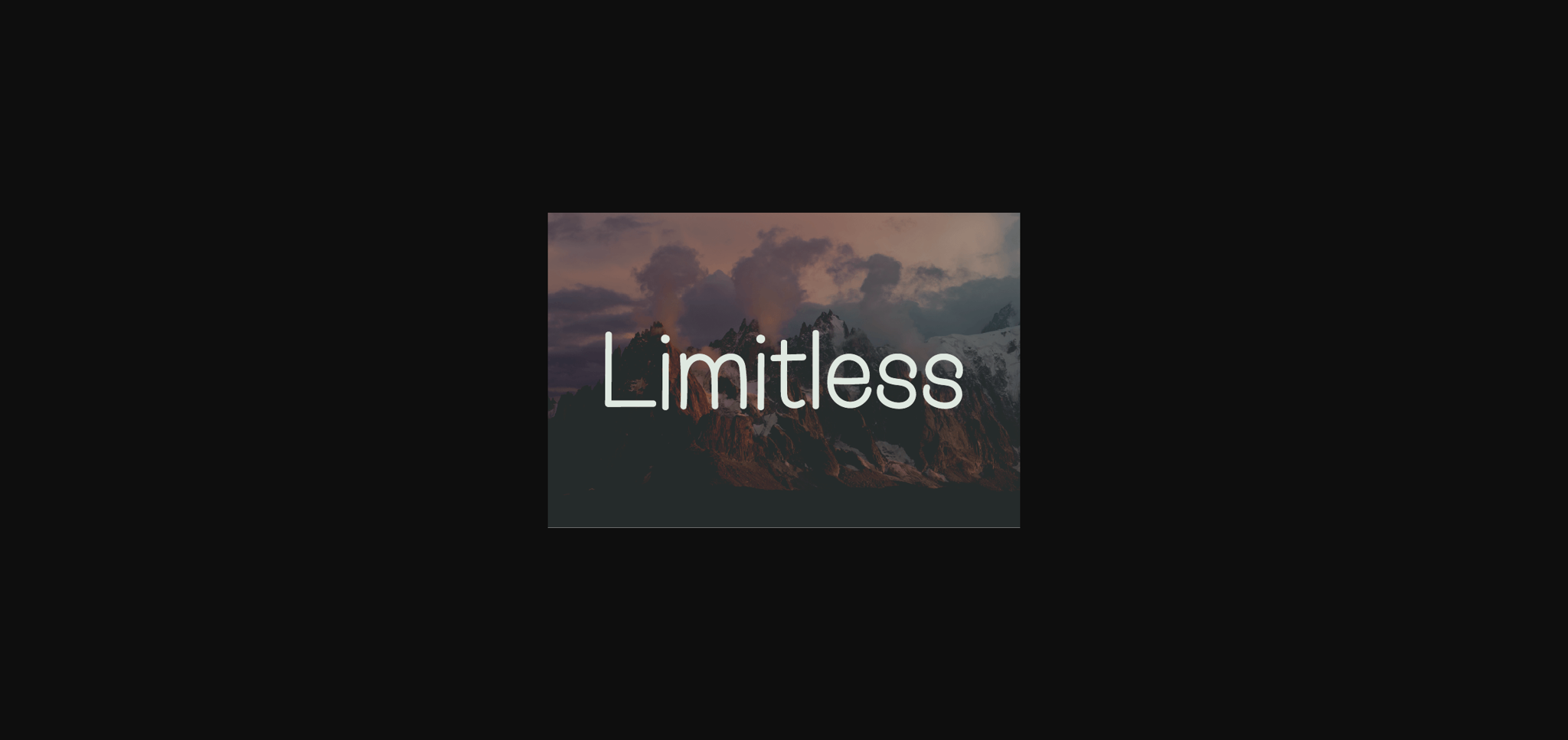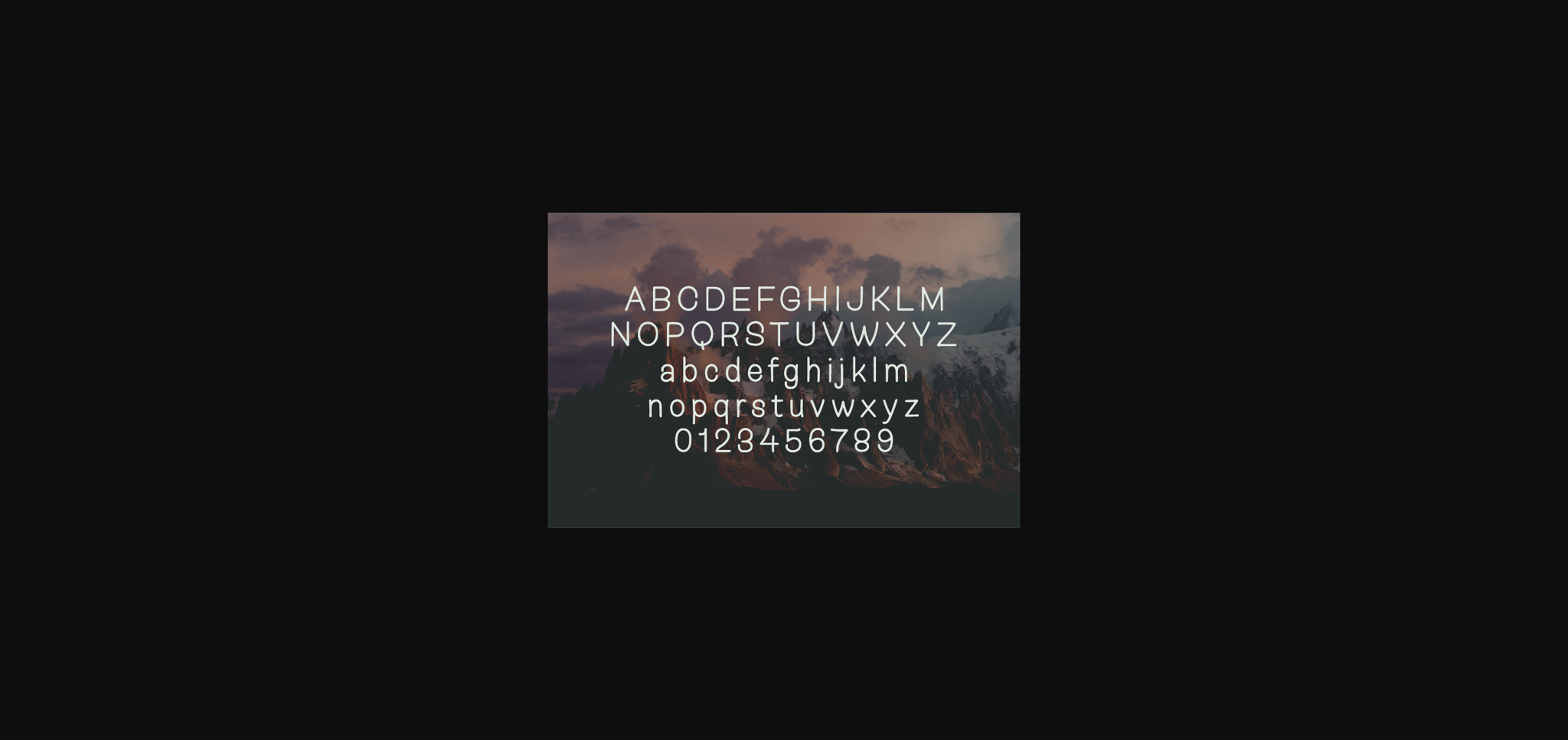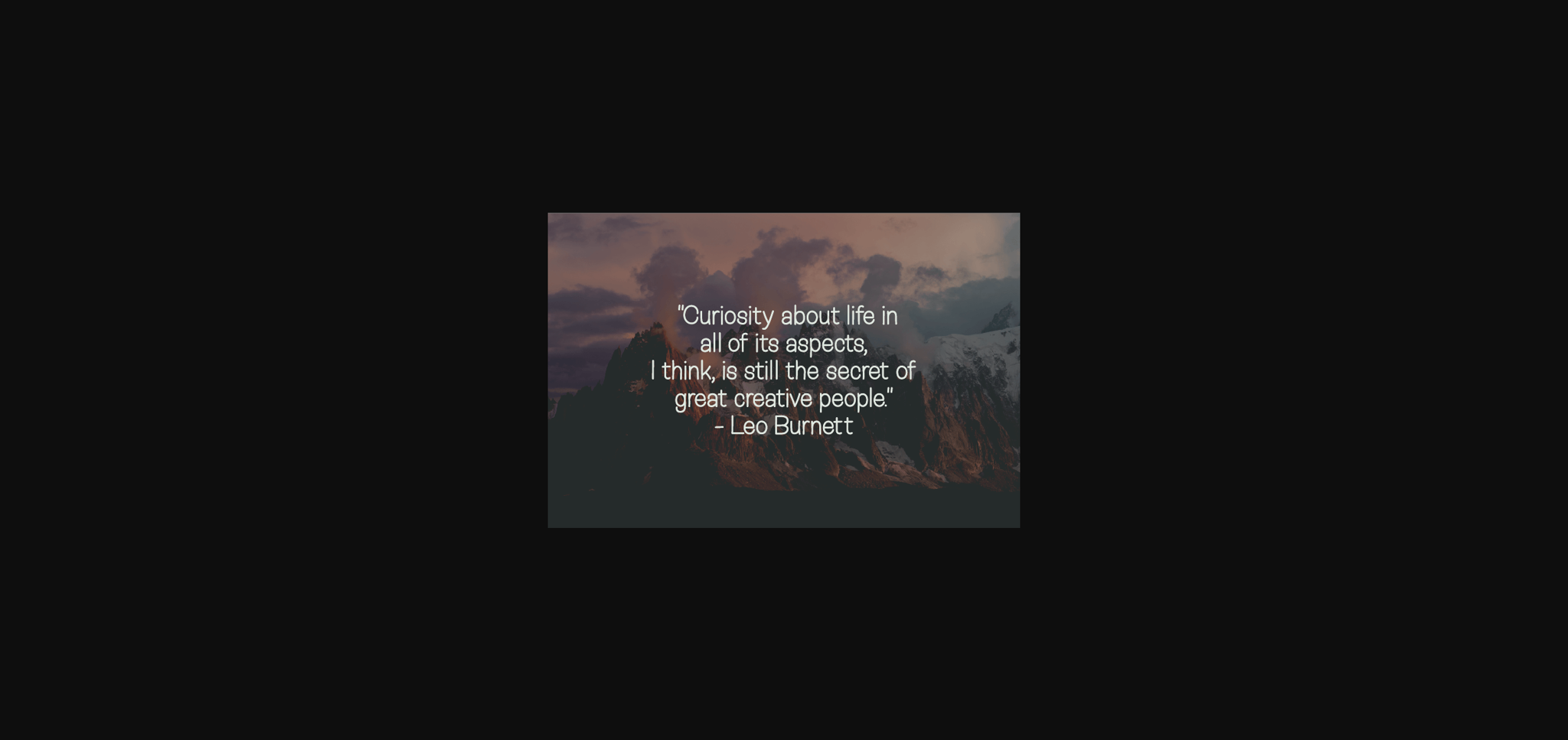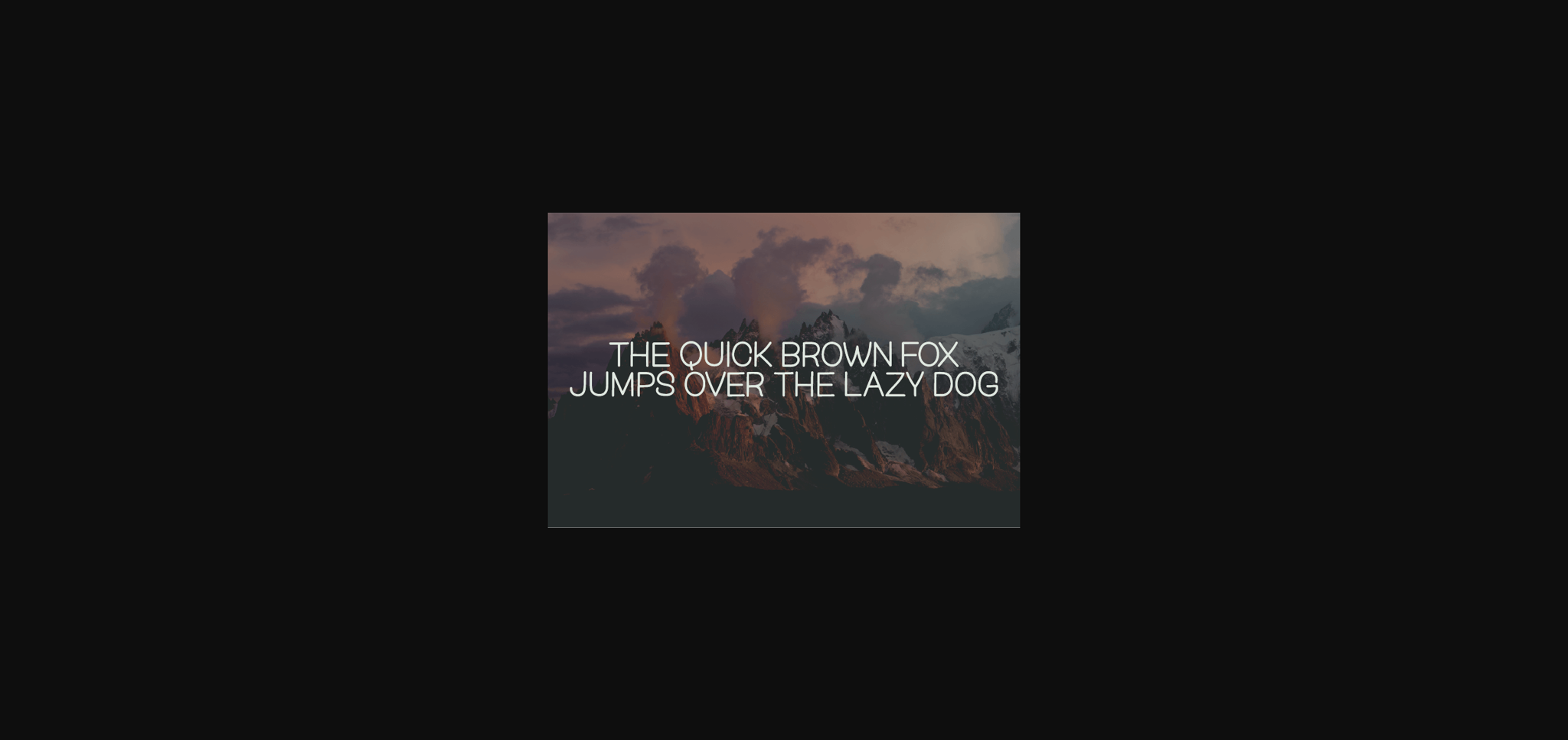
HomeSans Serif FontsLimitless Font Sans Serif Fonts Limitless Font FacebookTwitterPinterestWhatsApp 1 of 6 ... Limitless Font Poster 2... Limitless Font Poster 3... Limitless Font Poster 4... Limitless Font Poster 5... Limitless Font Poster 6... About Limitless Font Limitless is a casual and neat sans serif font that impresses through its natural and elegant style. This typeface will enhance your craft with little effort, making your product stand out from the competition. DOWNLOAD NOW People also explored Be My Valentine Font Mezza Extra Light Font Black Coffee Font Yonliws Font Mystic Polaris Font Selopaty Campble Font Please Don’t Take My Man Font Patteson Font Luscious Quinn Duo Font 239 0 TagsLimitless Font Previous articleCalifornia FontNext articleAvocado Font LEAVE A REPLY Cancel reply Comment: Please enter your comment! Name:* Please enter your name here Email:* You have entered an incorrect email address! Please enter your email address here Website: Save my name, email, and website in this browser for the next time I comment. Personal Use Free Braindly Personal Use Free Read more about this font Geracella Personal Use Free Read more about this font Wildwest Personal Use Free Read more about this font Dealisya Personal Use Free Read more about this font BLOG Free Fonts Risk: Why Free Fonts Can Be Dangerous for Designers Free Fonts Risk: Why Free Fonts Can Be Dangerous for Designers Using free fonts is a common practice in web and graphic design. However, the... Exploring Font Trends Transform Your Website: Elevate Your Typography with 7 Best Web Font Generators Best Fonts for YouTube Videos: Make Your Thumbnails Stand Out